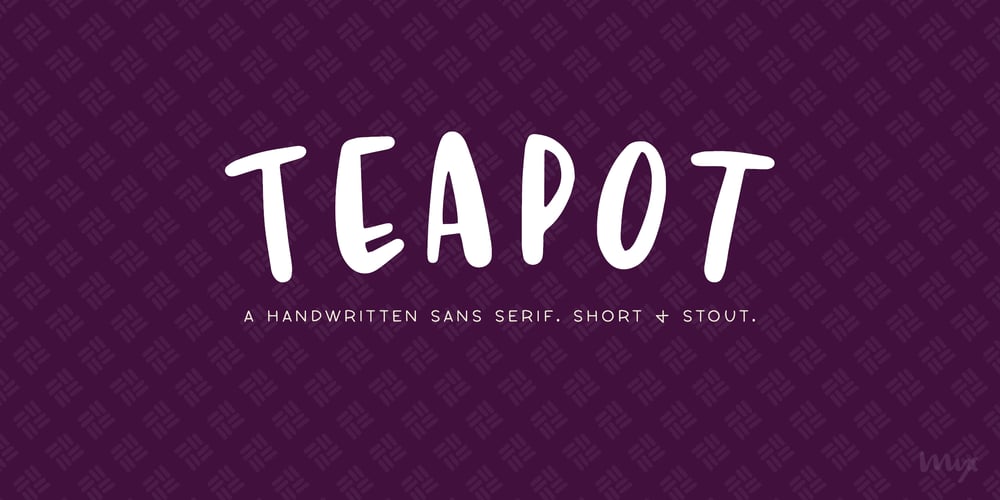
Mix Teapot
Mix Teapot font
Mix Teapot Font Family was designed by Mikko Sumulong and published by Mix Fonts. Mix Teapot contains 1 styles and family package options. Mix Teapot is a handwritten sans serif, short & stout. This was written on an iPad using the Poppy procreate brush from my Procreate Lettering Brush Bundle. Mix Teapot includes the following characters: ABCDEFGHIJKLMNOPQRSTUVWXYZ (plus an alternate for each) abcdefghijklmnopqrstuvwxyz (plus an alternate for each) 0123456789 !@$#%^&*()`~♥• +=[]:;’”,.|/?{}<>“”‘’-–—_…©®™«»°²³¡¿₱¢€£¥½¼¾ ÁÀÂÄÃÅĂĀĄÆĆĈČÇÐĐÉÈÊËĖĒĘĜGĤÍÌÎÏIĪĮĴKŁŃÑŇ ÓÒÔÖÕØŌŐŒŔŘŚŜŠȘŞŤȚÚÙÛÜŮŰŪŲẀẂŴÝŶŸŹŽŻ áàâäãåăāąæćĉčçðđéèêëėēęĝgĥíìîïiīįĵkłńñň óòôöõøōőœŕřśŝšșşťțúùûüůűūųẁẃŵýŷÿźžż